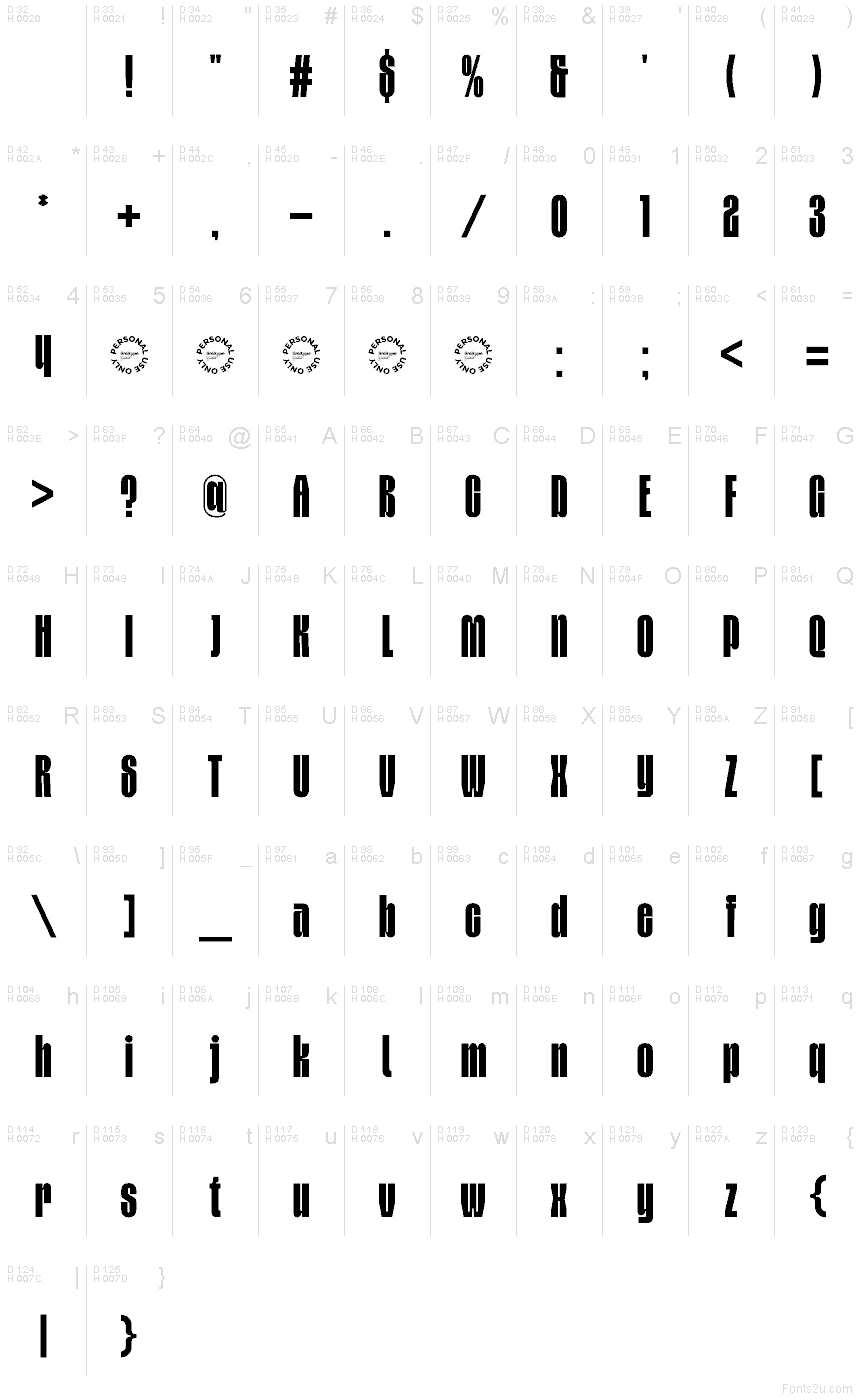
Skywall Demo
Skywall font by Limitype is a free decorative sans serif typeface with a bold, almost architectural presence. Its chunky verticals, tight spacing, and softly rounded corners create a stacked, monolithic look that feels both retro and futuristic, like lettering carved into a concrete skyline. Letters lock together in a solid block, giving headlines a dense, impactful texture that’s hard to ignore.
Using Skywall, brands and designers can craft striking posters, logos, album covers, event flyers, packaging, and social media graphics that demand attention. This free font shines at large sizes where its sculpted shapes can really breathe, and it pairs smoothly with a light, neutral sans serif for supporting text to balance its heavy, compressed forms.